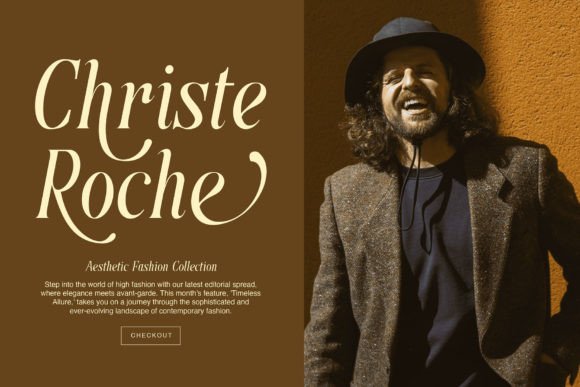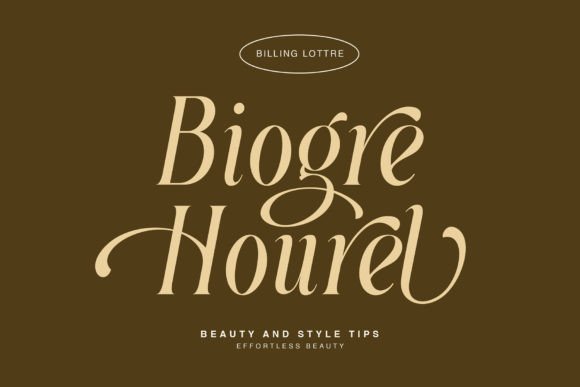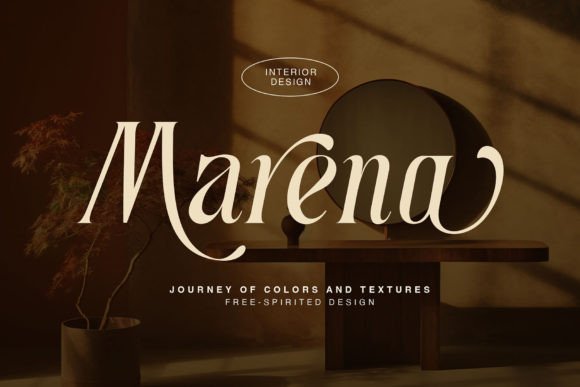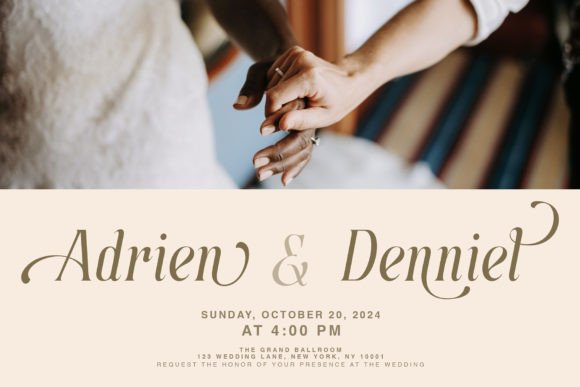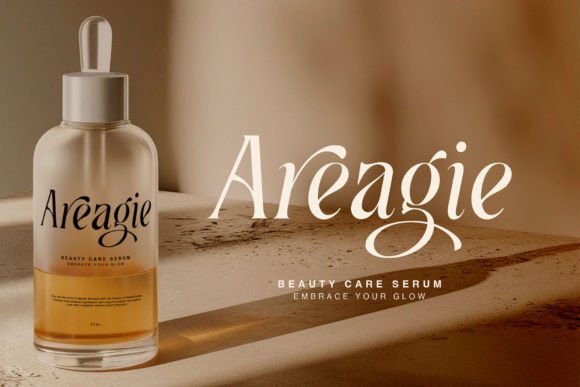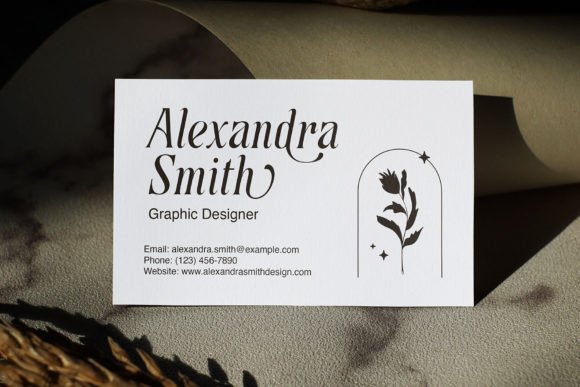
Introduction to Billing Lottre Font
Have you ever stared at a blank canvas, waiting for the perfect font to bring your creative project to life? For designers, finding the right typography can be a daunting task, especially when it comes to creating a cohesive and visually appealing design. But what if you could unlock a world of elegant and luxurious typography with just one font?
Enter the Billing Lottre Font, a stunning design resource that offers beautiful typographic harmony for a variety of design projects. With its high-quality and versatile style, this font is perfect for creating classy editorial designs, fashion promotions, and modern advertising designs that exude sophistication and style. Whether you’re working on a women’s magazine, a fashion brand, or a special event invitation, the Billing Lottre Font is sure to elevate your design to the next level.
Billing Lottre Font
- Unique design style with a transparent background, ideal for creative projects that require a modern and sleek look.
Honest Review: Billing Lottre Font
I recently had the chance to work with the Billing Lottre Font, and I must say it’s a solid addition to any design resource collection. This font is perfect for designers looking to add a touch of elegance to their creative projects.
- Perfect for creating a sophisticated look and feel
Limitations: ⚠️ While the Billing Lottre Font is a great resource, it’s not without its limitations. The font is only available in a single weight, which might limit its versatility for some designers. Additionally, the font doesn’t include a lot of character variations, which might make it less suitable for projects that require a lot of customization.
Overall, I’m impressed with the Billing Lottre Font. It’s a great choice for designers looking to add a touch of elegance to their creative projects. While it has some limitations, the benefits far outweigh the drawbacks, making it a valuable addition to any design resource collection.